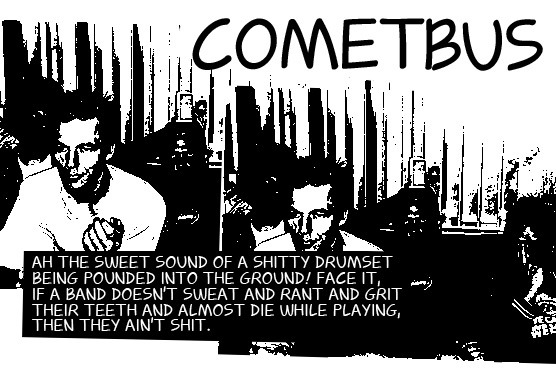
Cometbus by Zoya Feldman is a free handwritten display font with tall, loosely drawn capitals and an unmistakably homemade spirit. Stroke widths shift gently, and the uneven proportions make each letter seem written at its own pace. The rounded forms stay light and open.
Themes of independent music, street culture, and personal publishing suit its unpolished lettering, making it useful for gig posters, album artwork, and magazine covers. It also fits cafe menus and small-batch packaging aimed at audiences who respond to candid, DIY design rather than polished corporate branding.
Based on Aaron Cometbus's handwriting in the Cometbus zine.